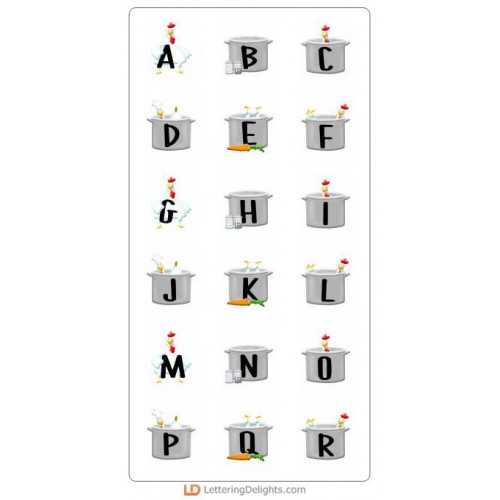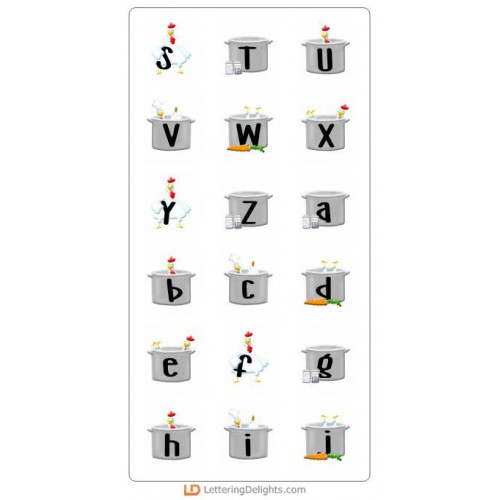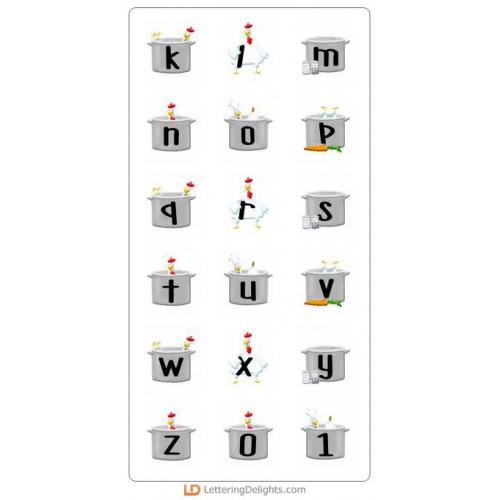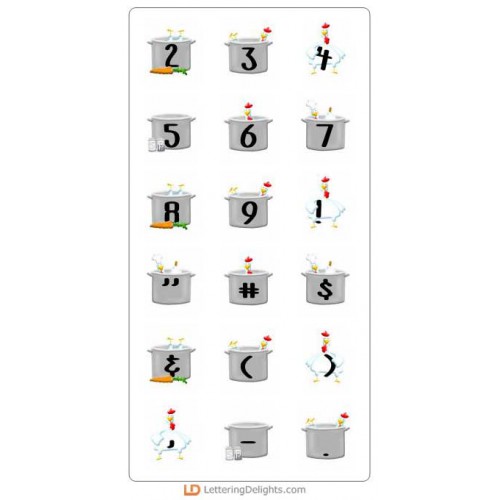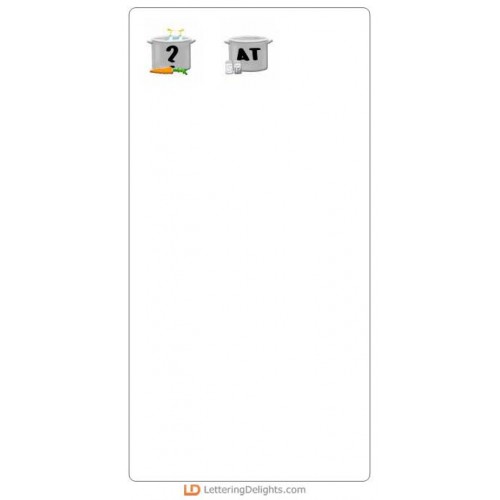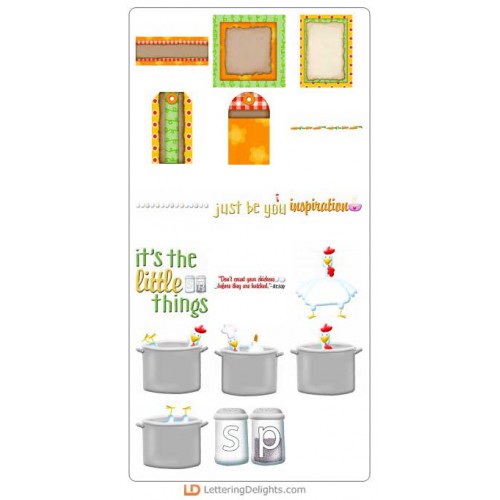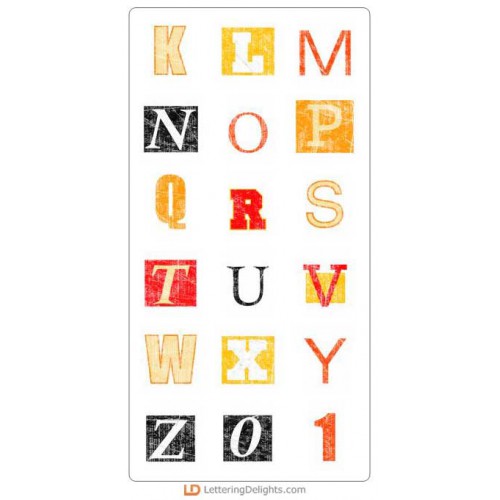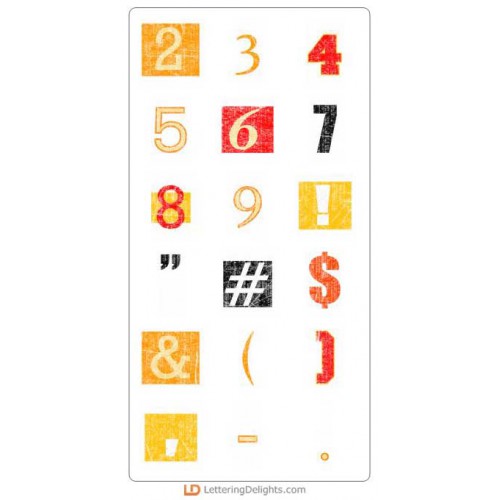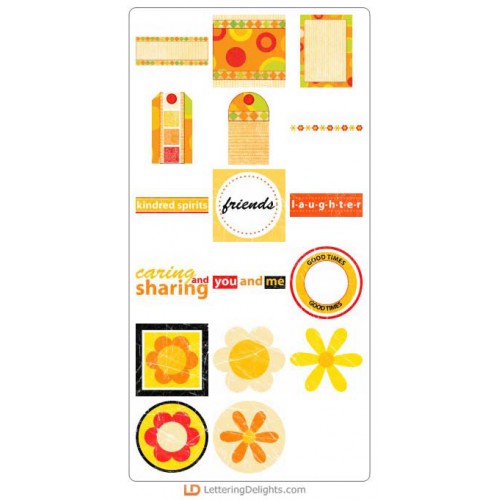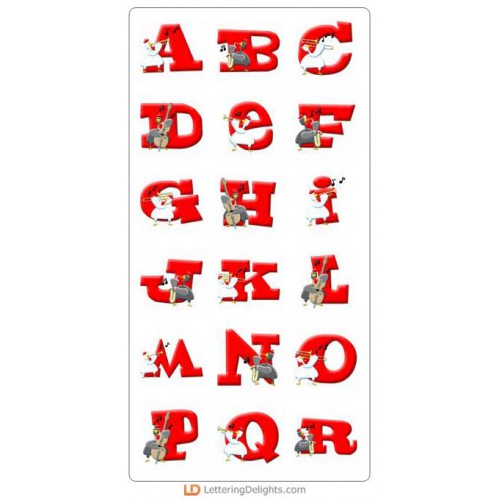
Chicken Soup Bundle
Our delightful Chicken Soup bundle is a unique collection of three alphabets and matching graphics sets. Included also is a font perfect for journaling. These printable paper crafting supplies are full of chicken-themed designs and make creative accents for get well greeting cards, barnyard scrapbook layouts, and other paper creations. LetteringDelights.com makes scrapbooking fun and affordable with money-saving bundles!